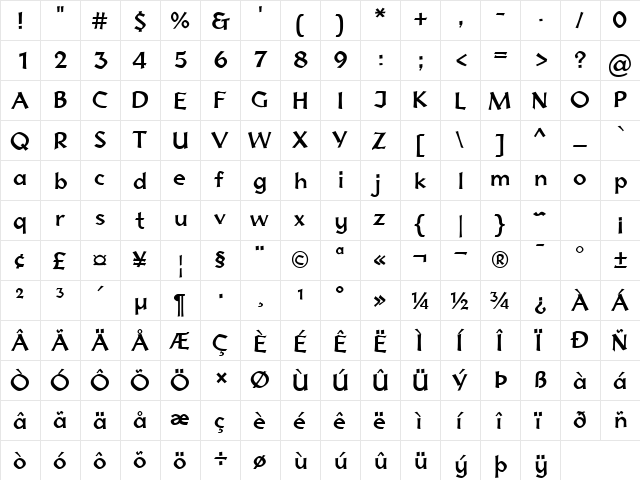
Normadica 43 DB Normal
Design Context for Normadica 43 DB Typeface
Normadica 43 DB takes a measured approach to typography — its balanced proportions and neutral character make it a reliable workhorse for both digital and print work.